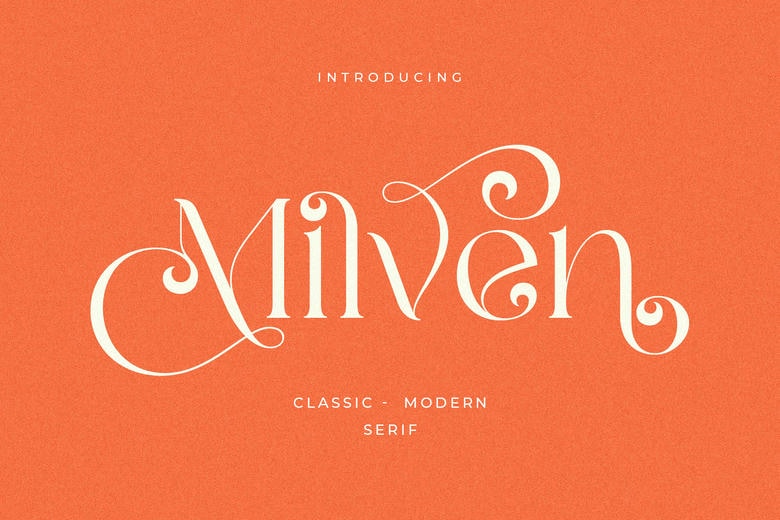
Milven Font
Milven is a modern and stylish serif font. Masterfully designed to become a true favorite, this font has the potential to bring each of your creative ideas to the highest level! The free version provides all uppercase and lowercase letters and a few special characters too.
Milven Serif Font